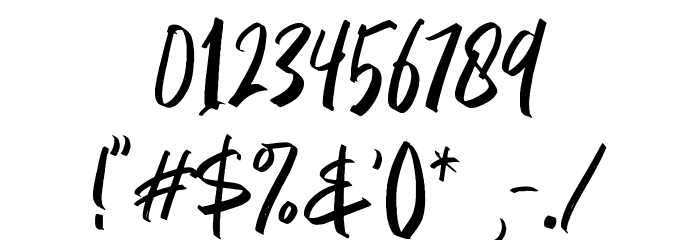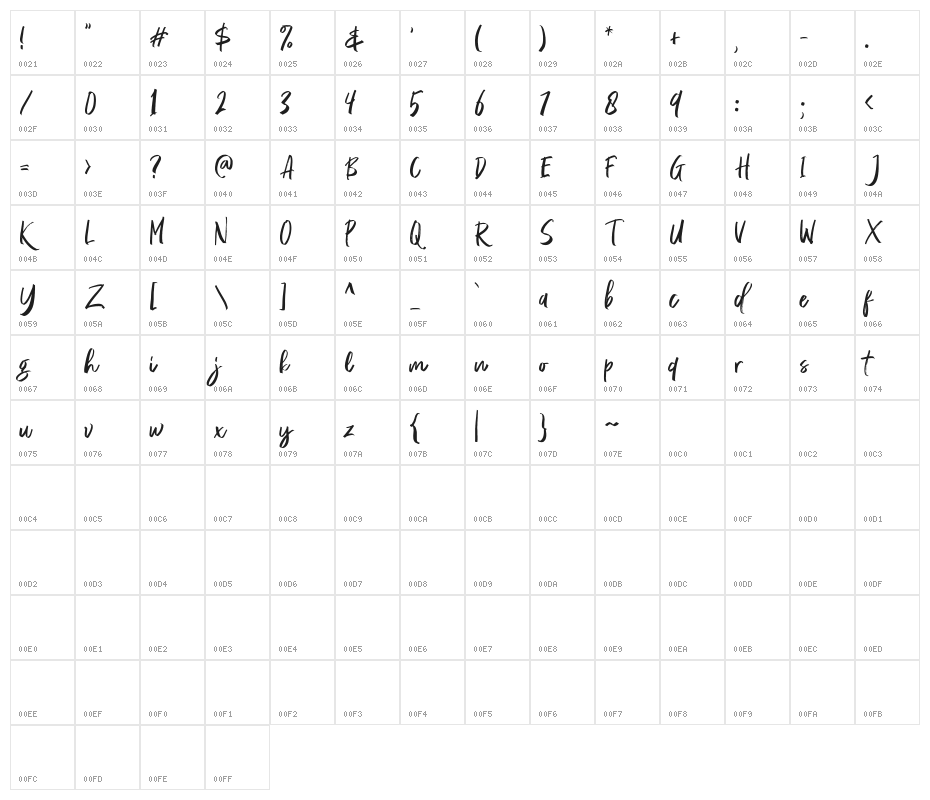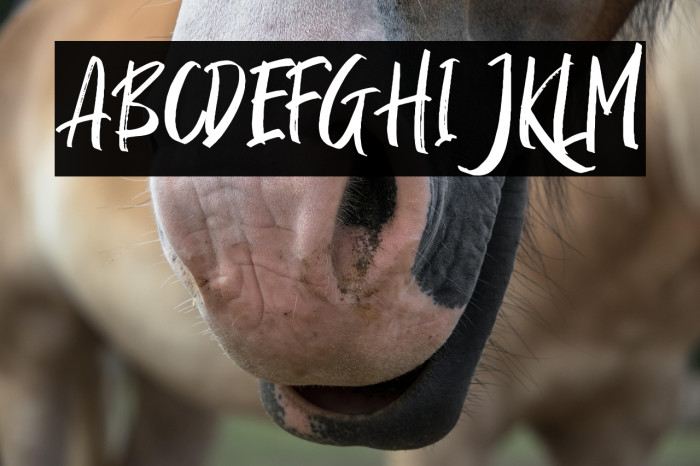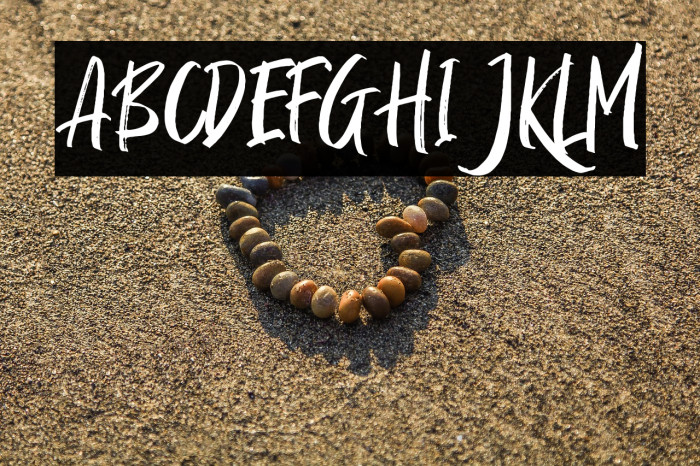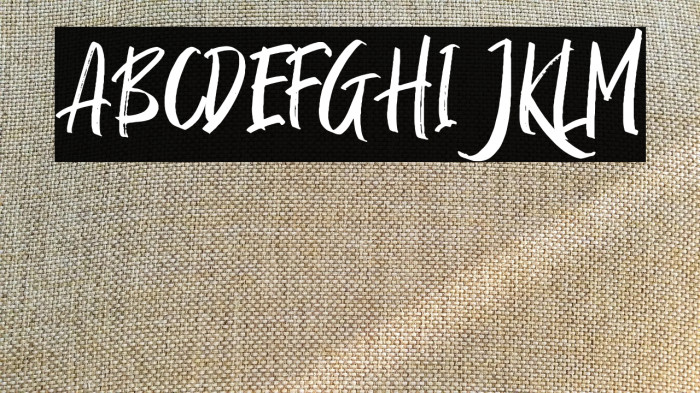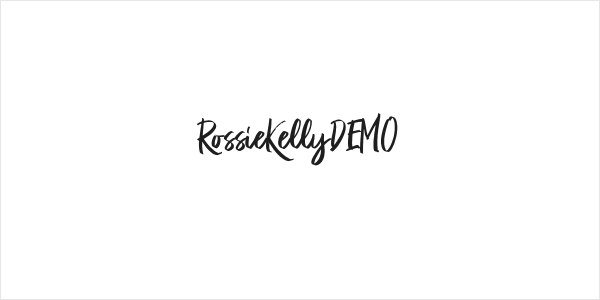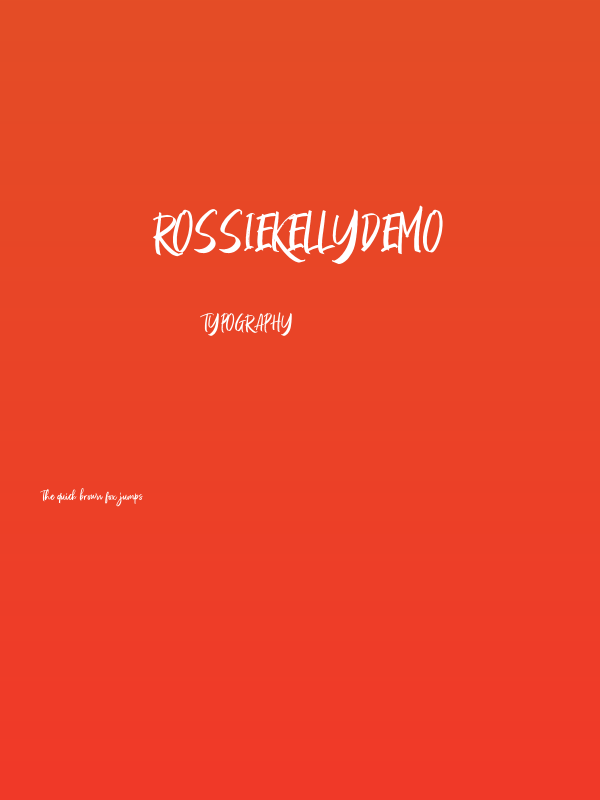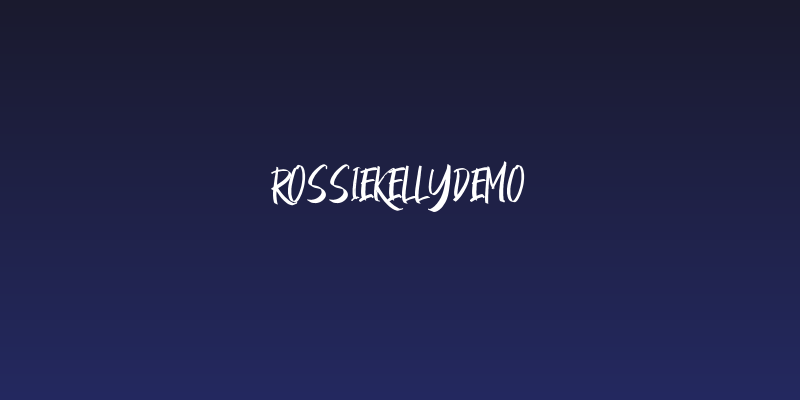
RossieKellyDEMO Font
RossieKellyDEMO Description
This font exudes a dynamic and energetic style, characterized by its bold, brush-like strokes that convey a sense of movement and fluidity. The uppercase letters are tall and slightly slanted, giving an impression of speed and spontaneity. The lowercase letters maintain a consistent flow, with smooth curves and a slightly informal touch. Numbers and special characters follow the same lively aesthetic, making them stand out with their expressive forms. This font is perfect for projects that require a personal, handwritten feel, yet retain a modern edge.